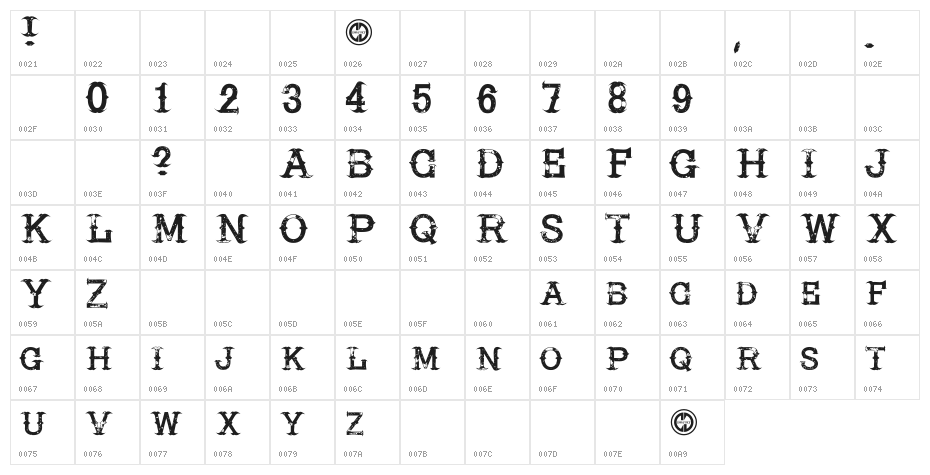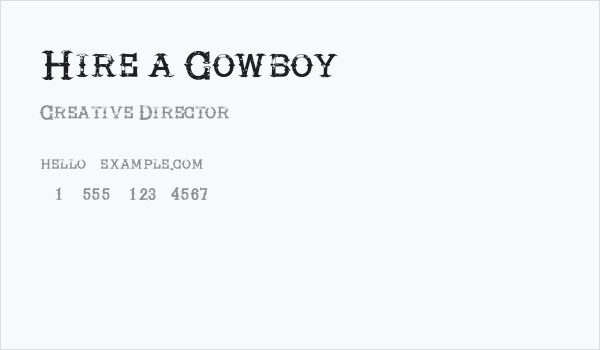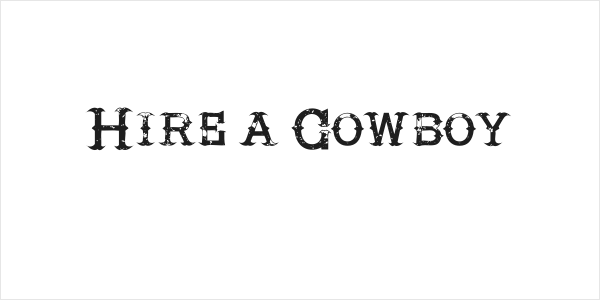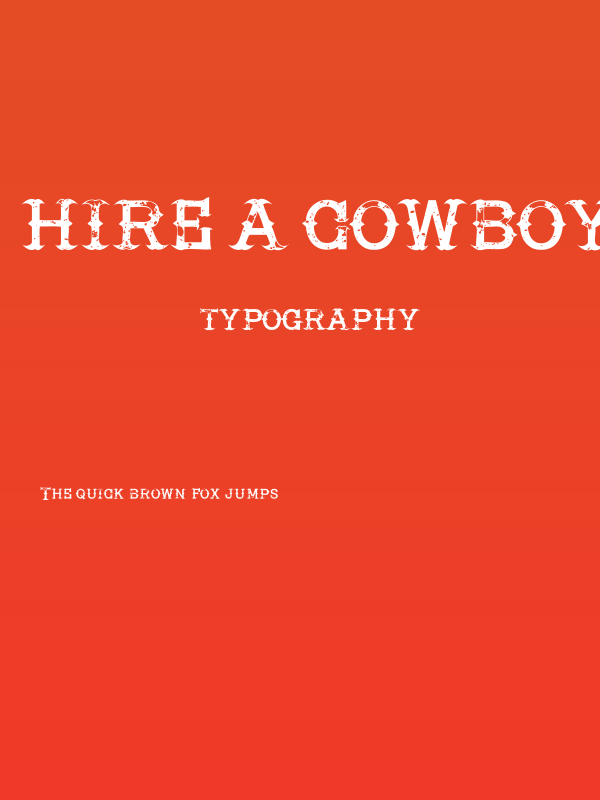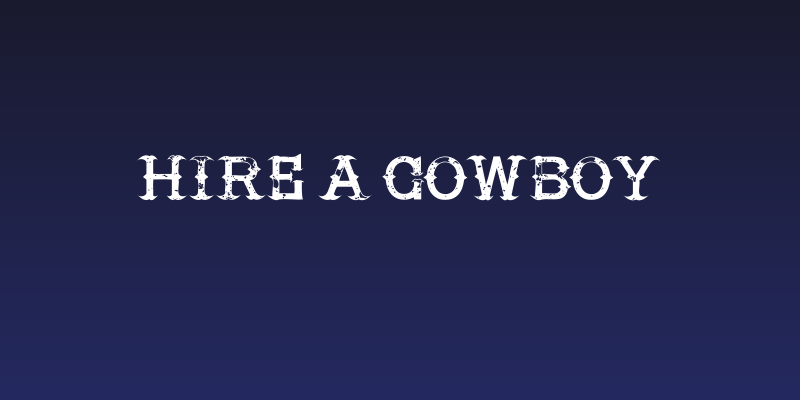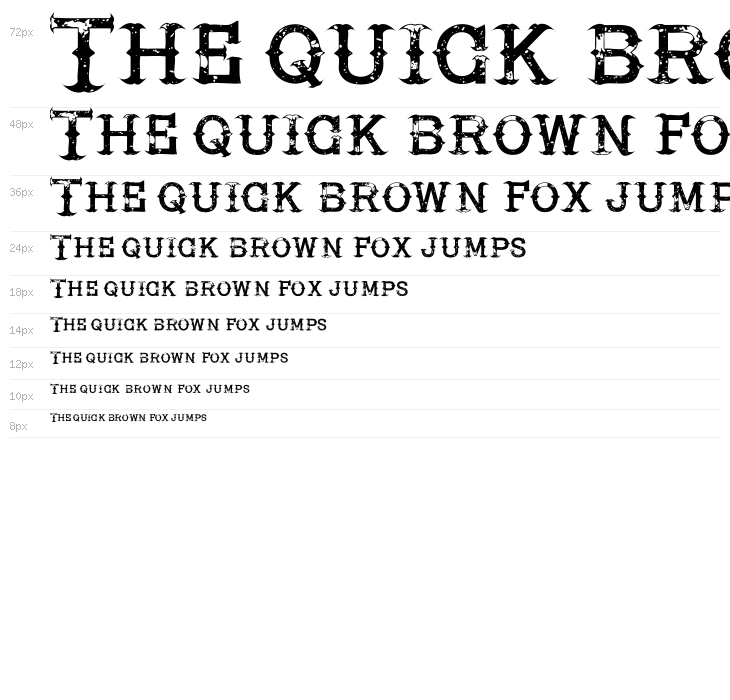
Hire a Cowboy Font
Hire a Cowboy Description
This font exudes a rugged, western-inspired aesthetic, characterized by its bold, distressed appearance. The uppercase letters feature a unique, weathered texture that gives the impression of being worn or aged, reminiscent of old cowboy signage. The serifs are pronounced, adding to the font's robust and sturdy feel. The numbers and special characters maintain this distressed look, ensuring a cohesive style throughout. This font is ideal for projects that require a vintage or rustic touch, such as posters, branding for western-themed events, or any design that seeks to evoke a sense of the wild west.